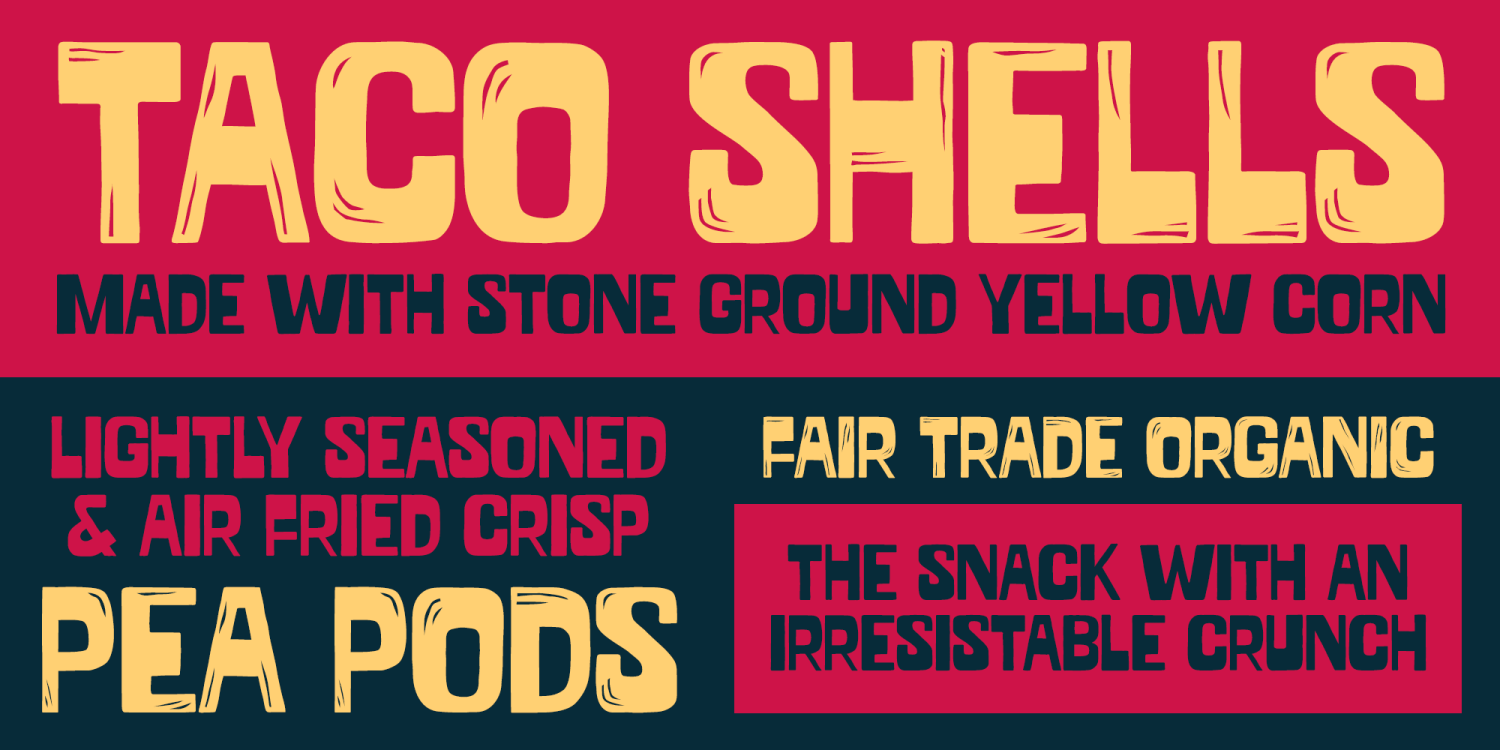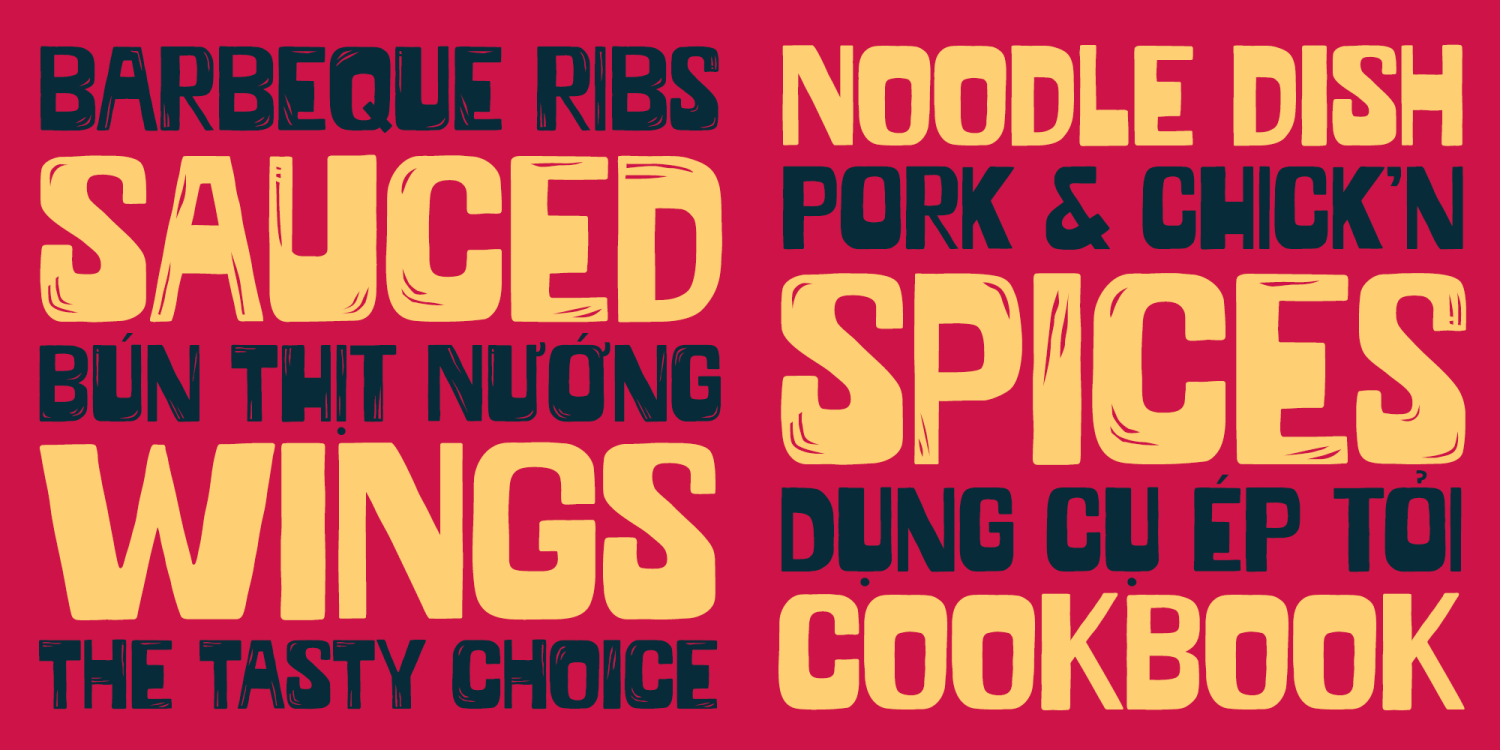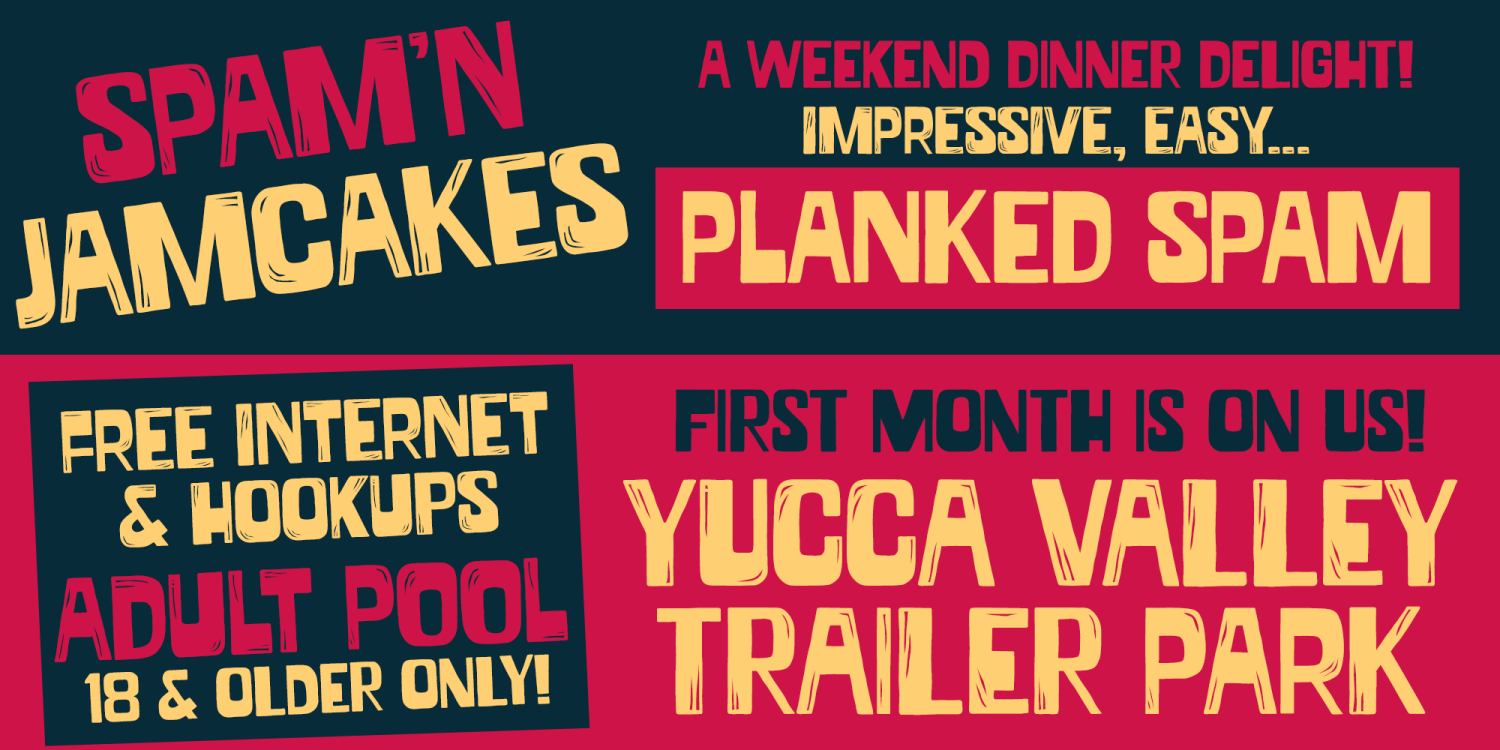
Need to make a seriously bold statement? Done with all the niceties, politeness, and decorum? Then get loud and in their face with GRUMP! Now get off my lawn!The Grump Family comes with two styles: Regular and Solid. The Regular has linoleum cut details,…